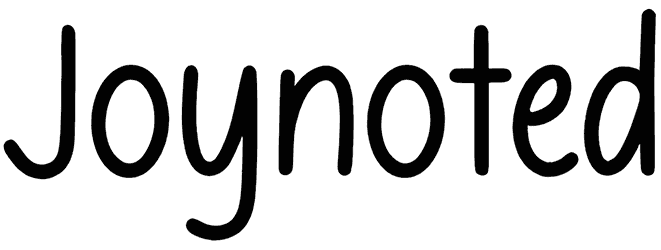
Joynoted Font
If you are looking for the easiest way to implement your projects and don’t want to involve the viewer with a lot of glitter, Joynoted can be a perfect fit for you.
This handwritten font has letters of the same thickness that can complete any design. So if you have a busy background and want to enforce a cheerful and fun summer-themed logo, poster, or brochure, nothing will be more satisfying than this script font.